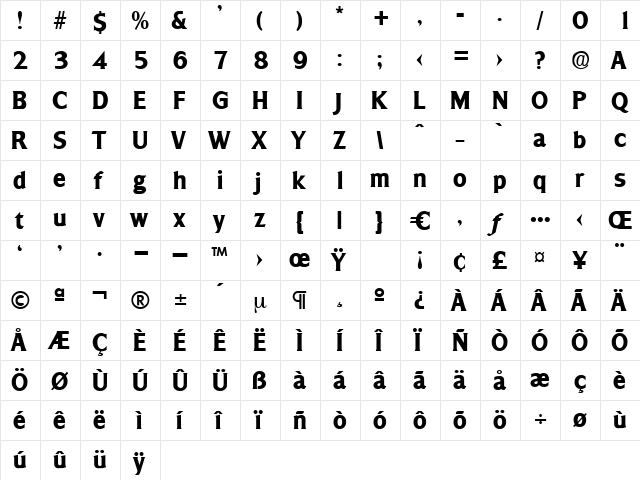
Jeremiah Regular
Design Context for Jeremiah Typeface
Jeremiah is a composed and adaptable typeface that performs quietly and consistently across a wide range of design contexts.